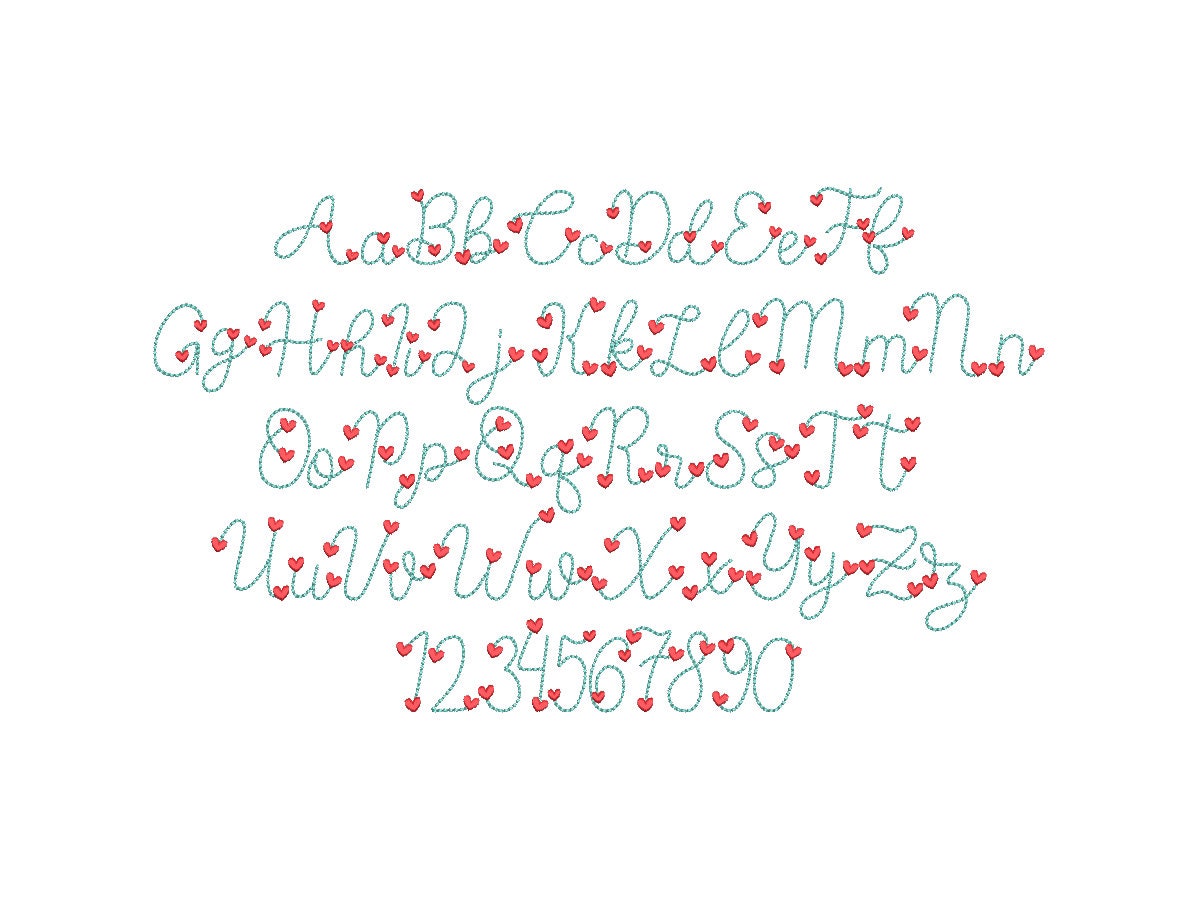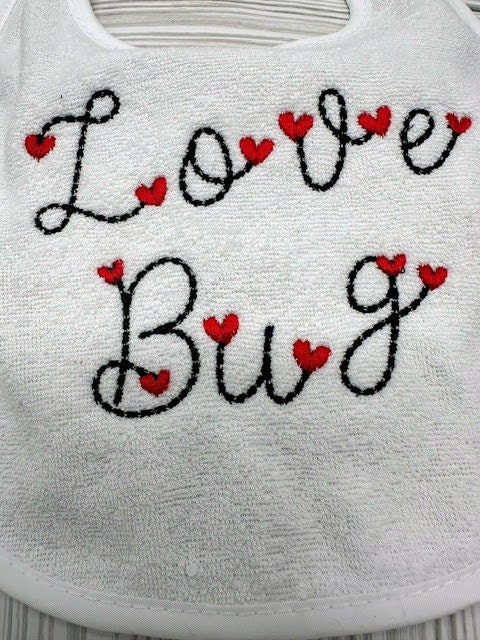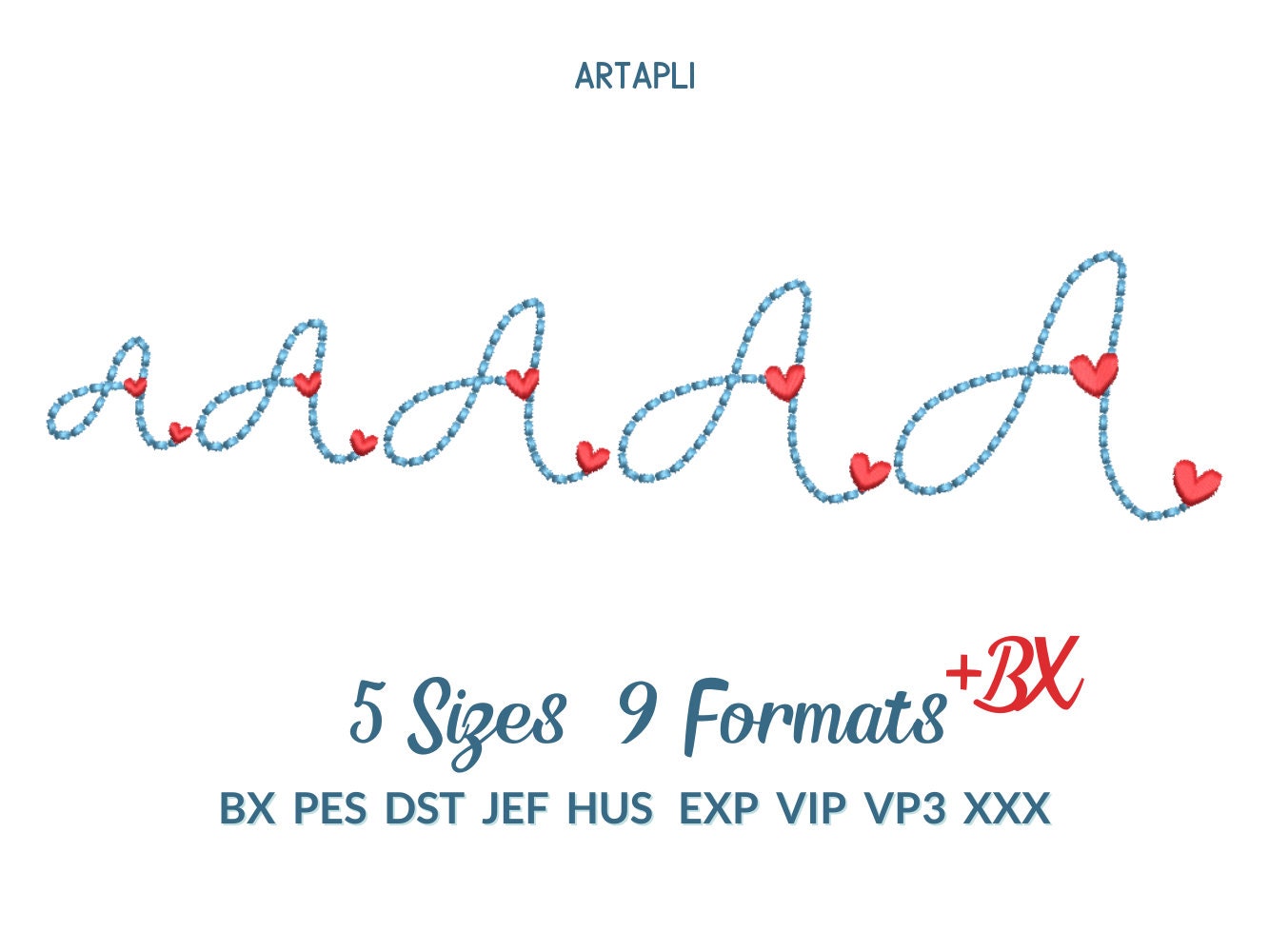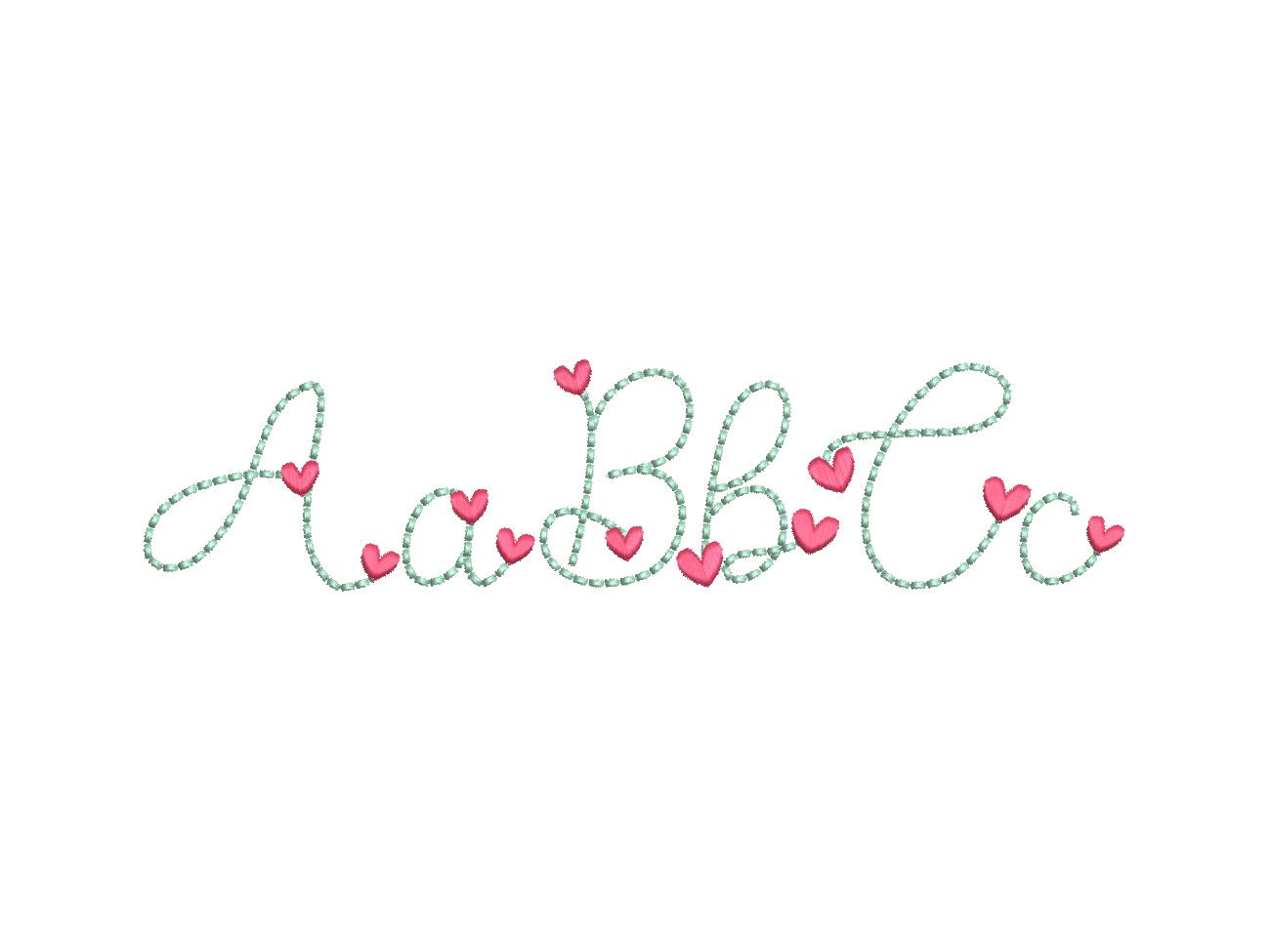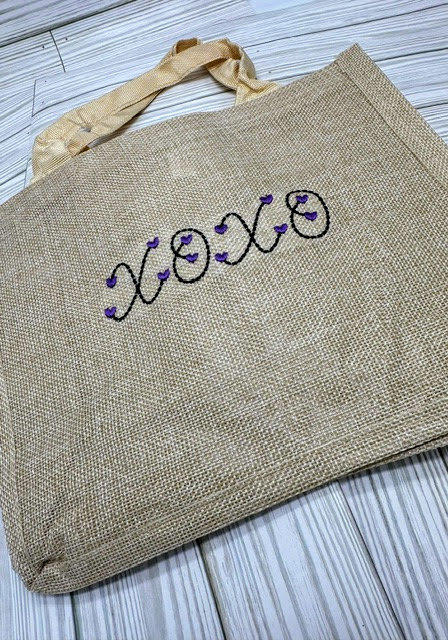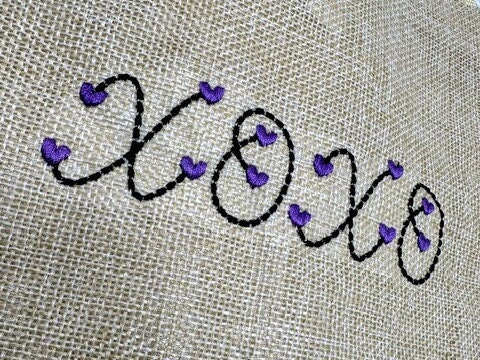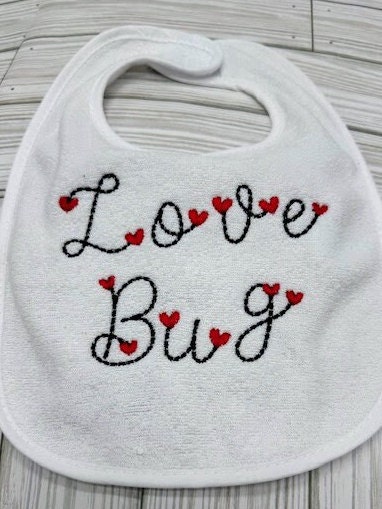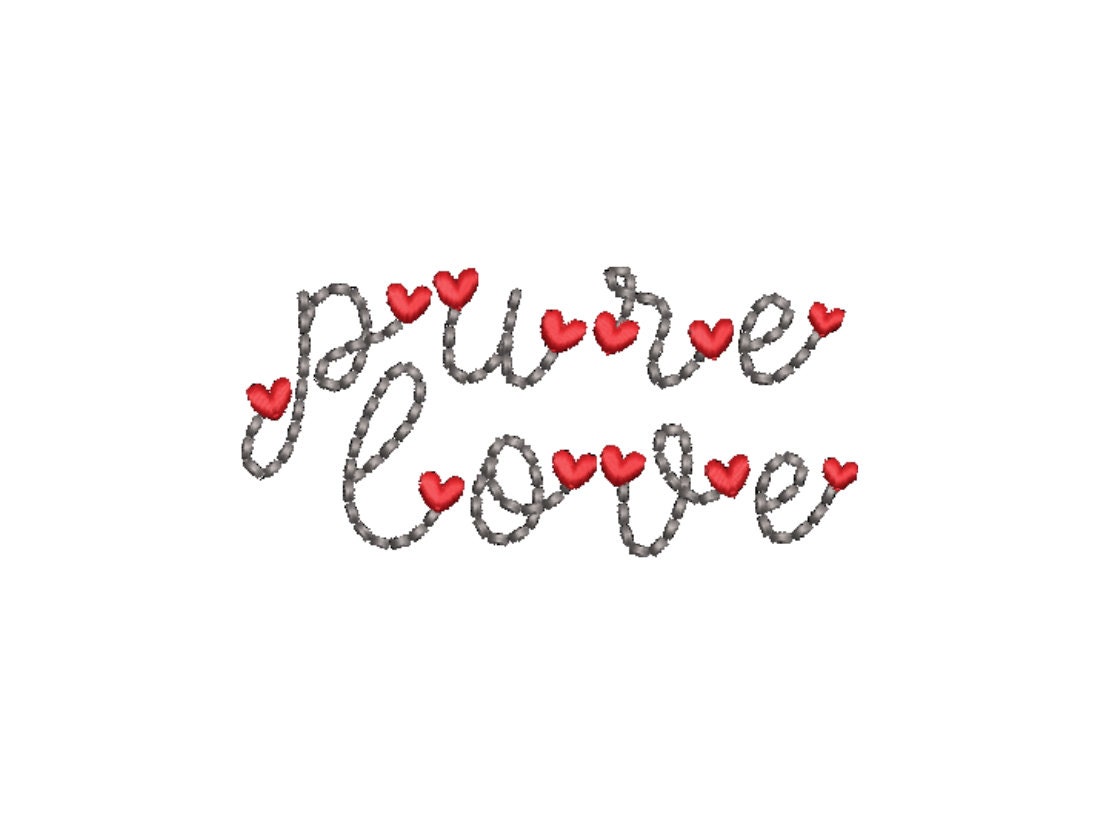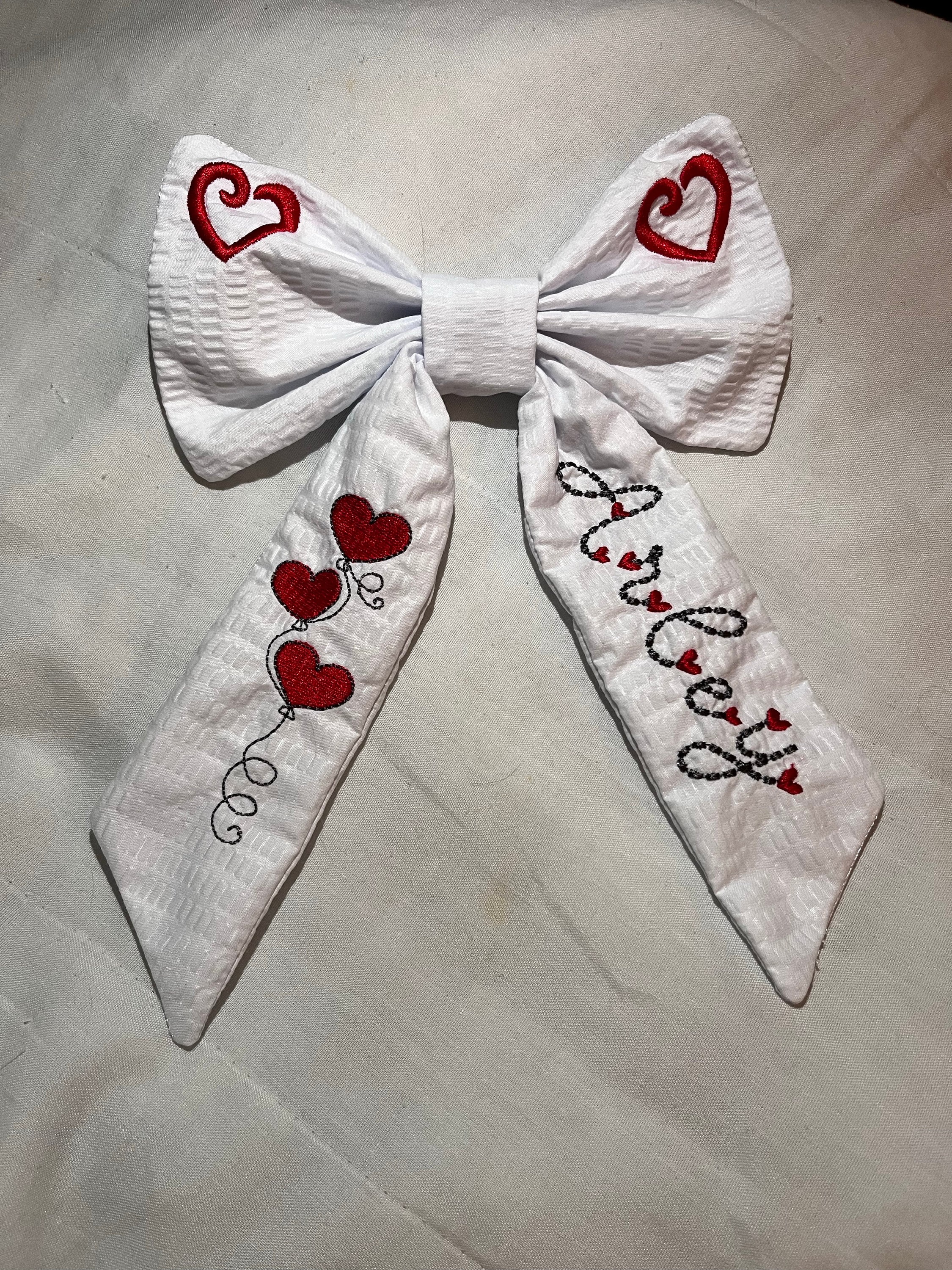
Heart Font puff bean stitch line Font machine embroidery designs assorted mini sizes handwritten script Valentine Font alphabet letters, BX included
The puff bean stitch is slightly puffed and gives a 3D effect to letters.
Entire alphabet: uppercase and lowercase letters, and numbers.